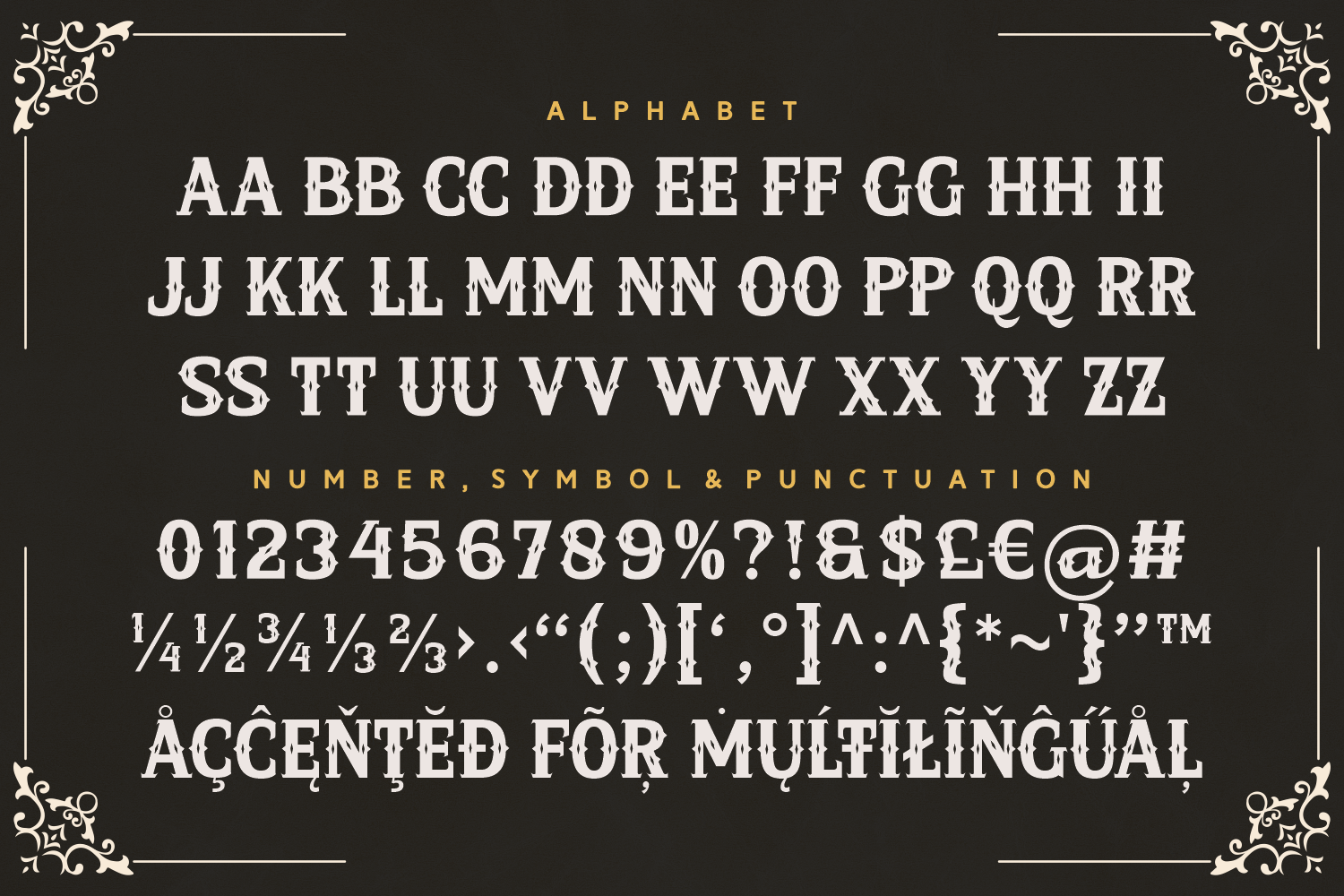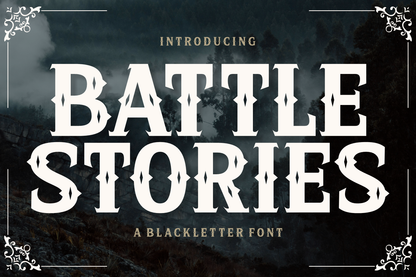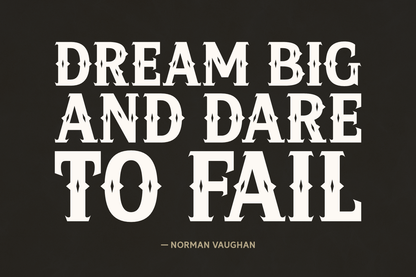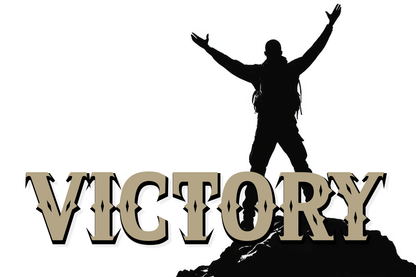
Battle Stories is a bold blackletter font that echoes medieval power and gothic drama. Its strong, ornate details command attention, making it perfect for fantasy book covers, historical posters, and gaming titles. With sharp angles and striking forms, this font adds a fearless tone to any project.